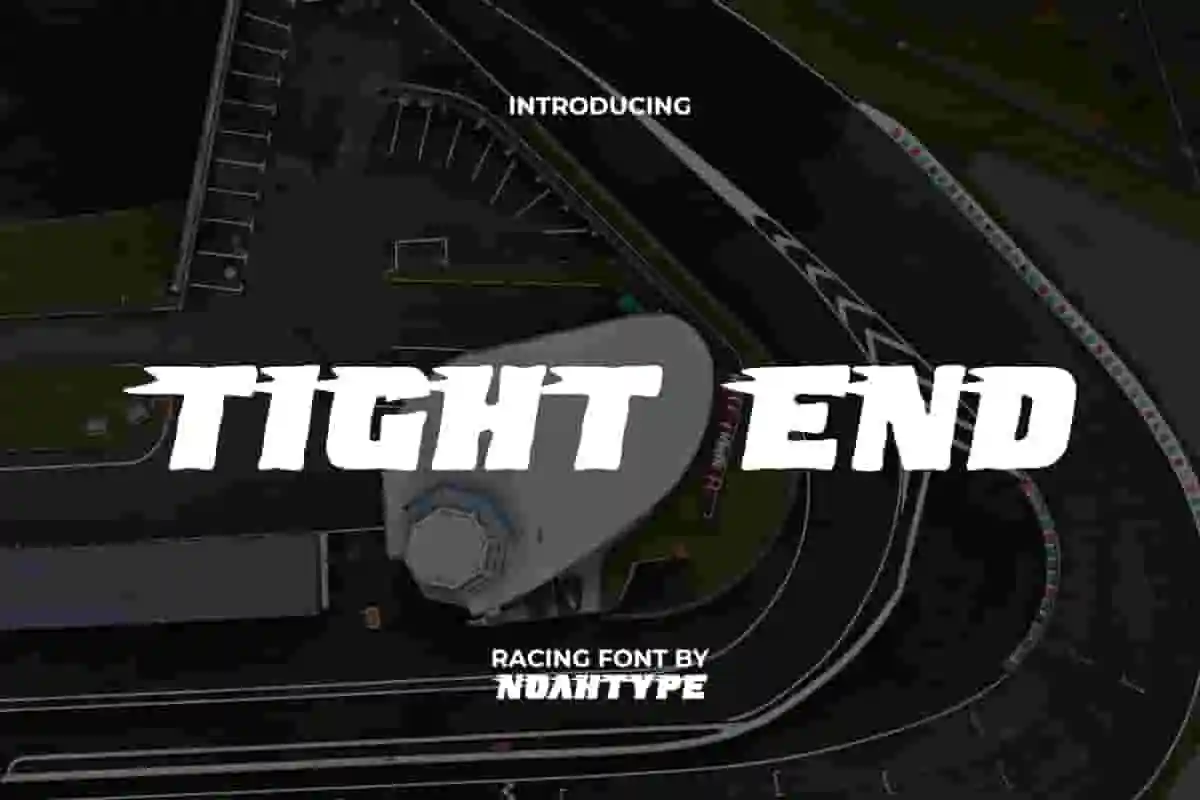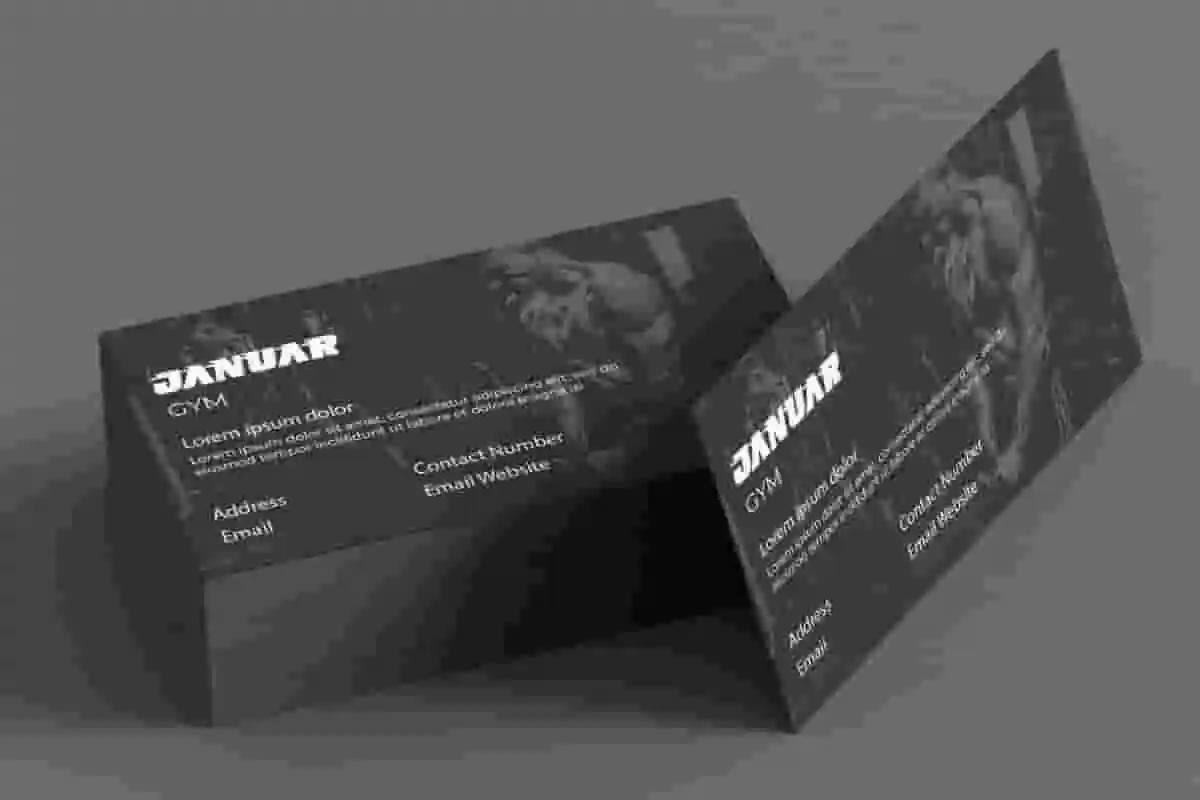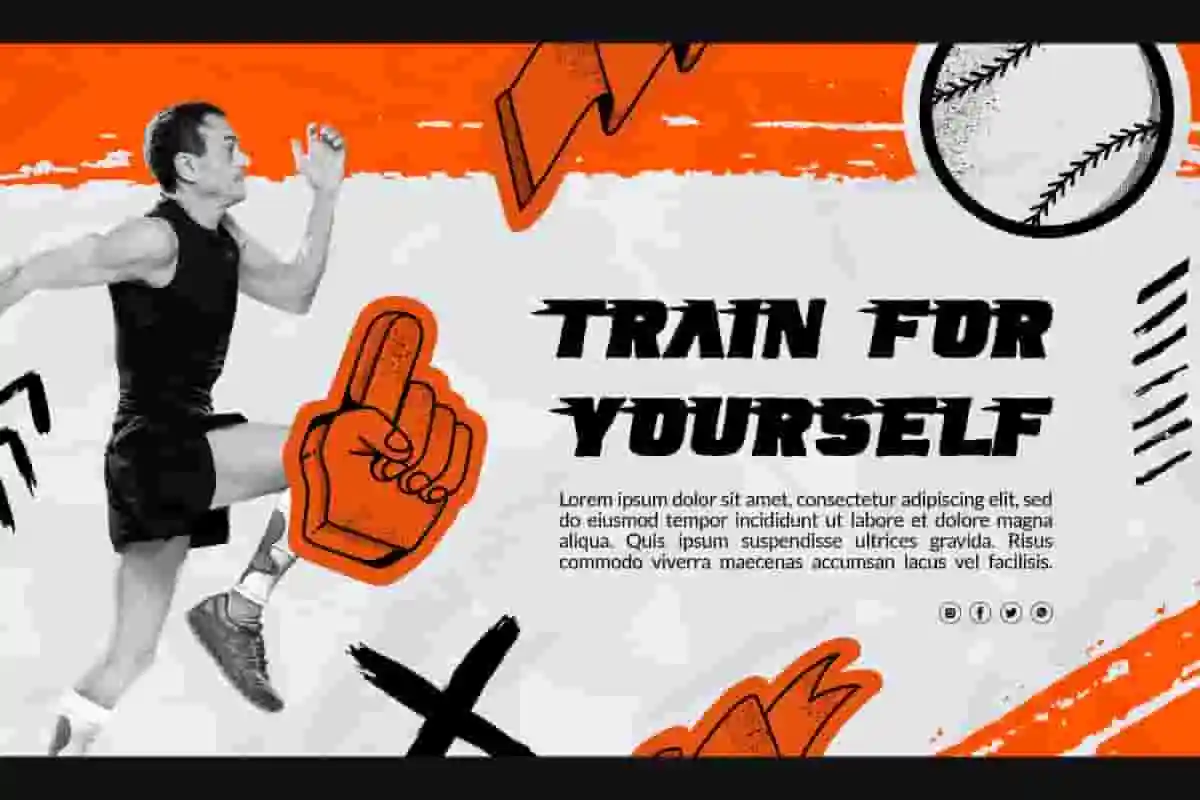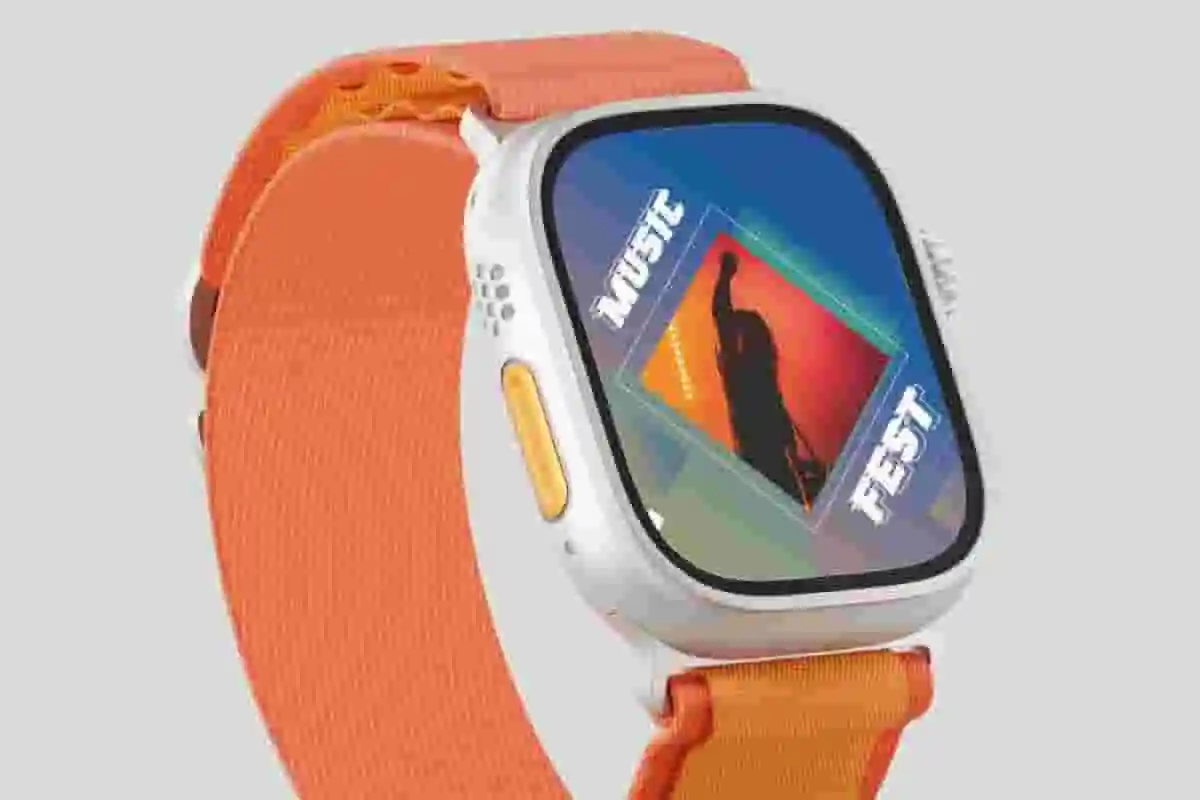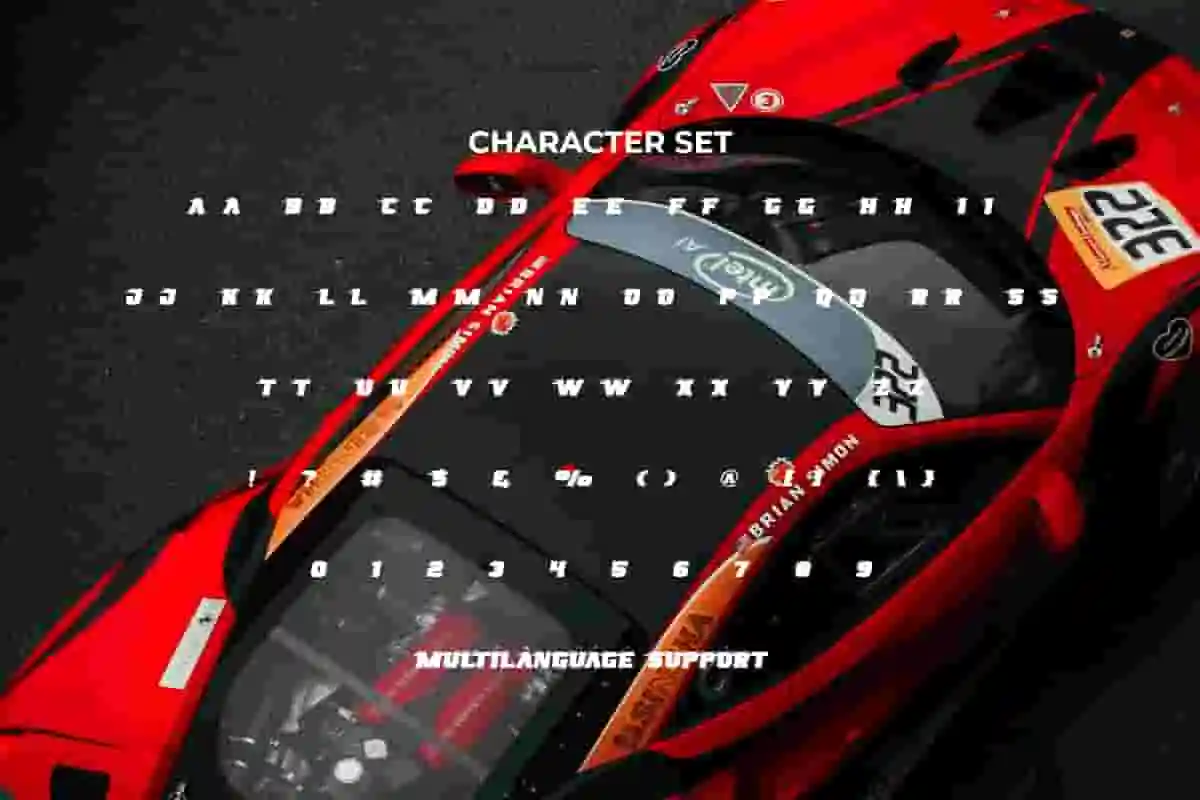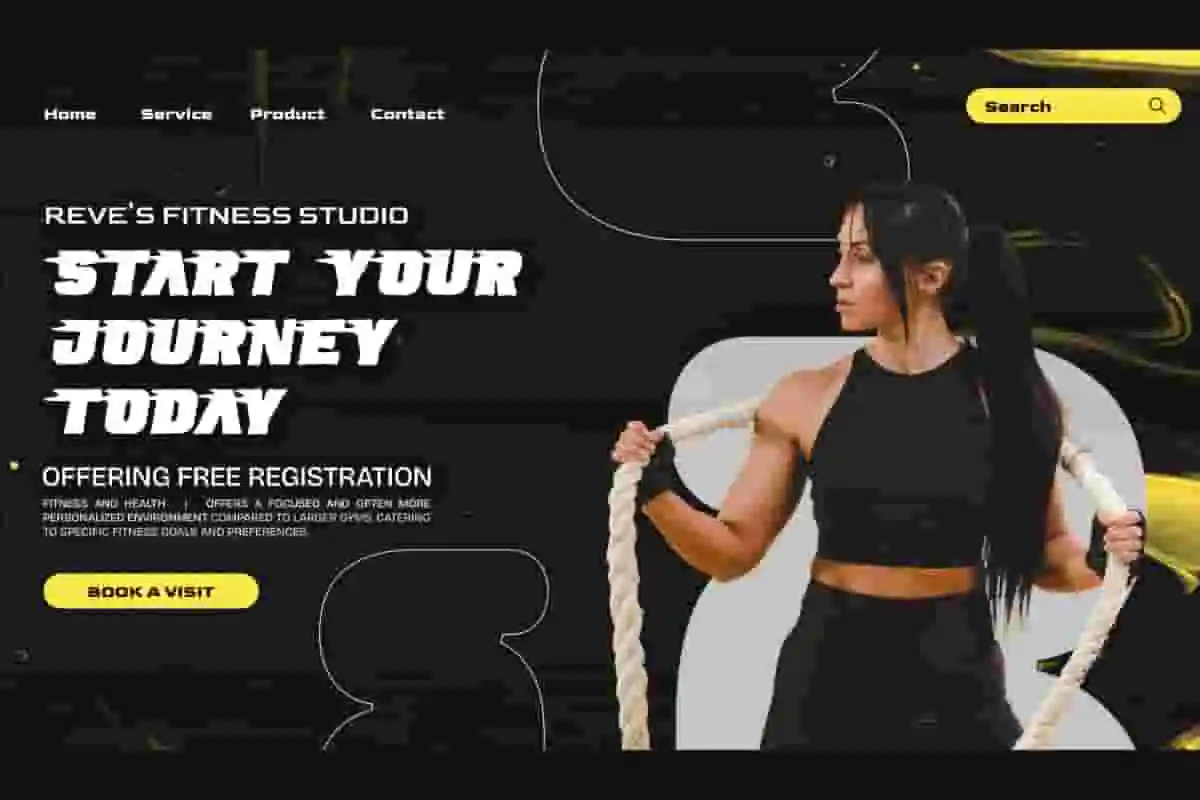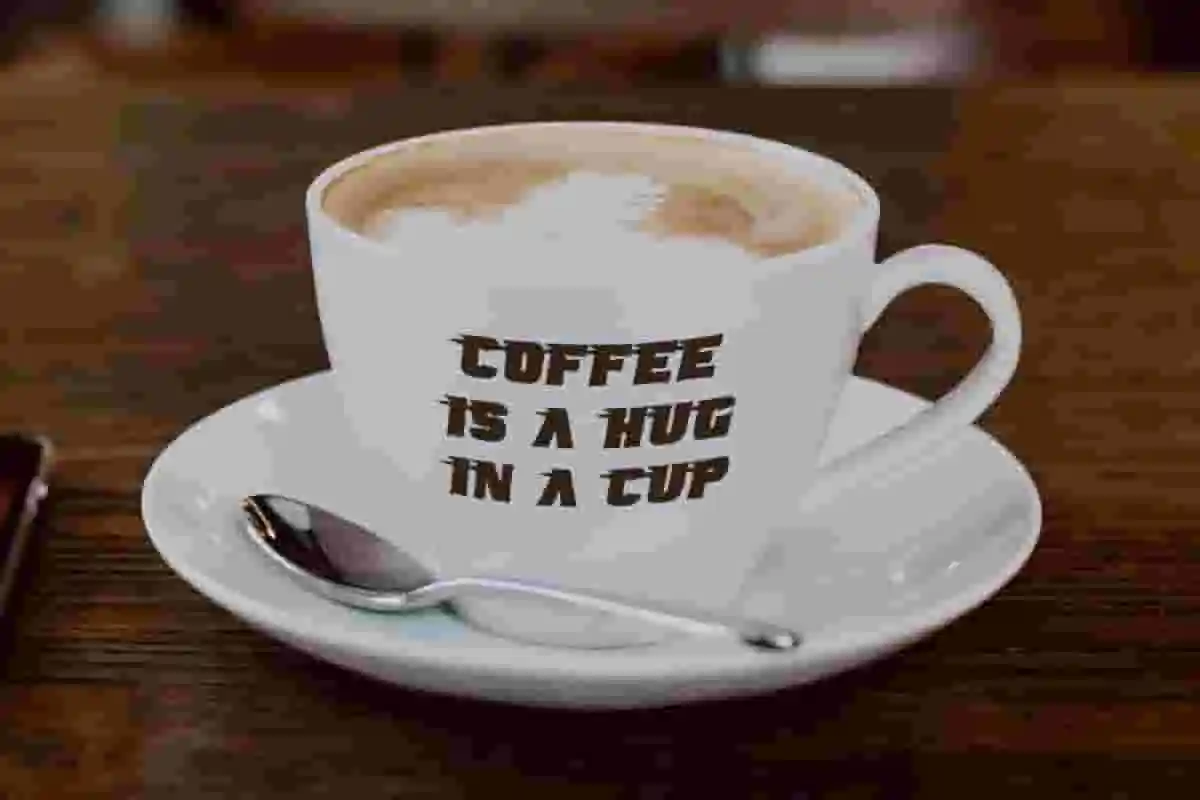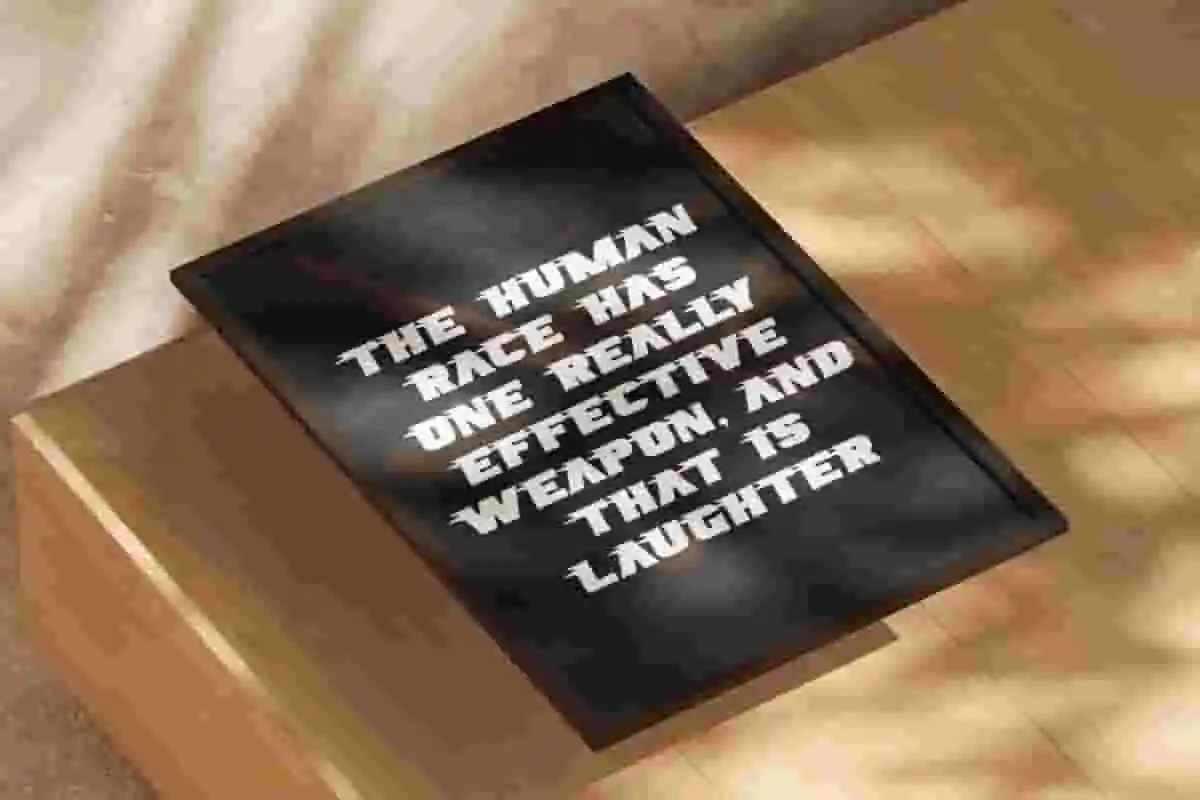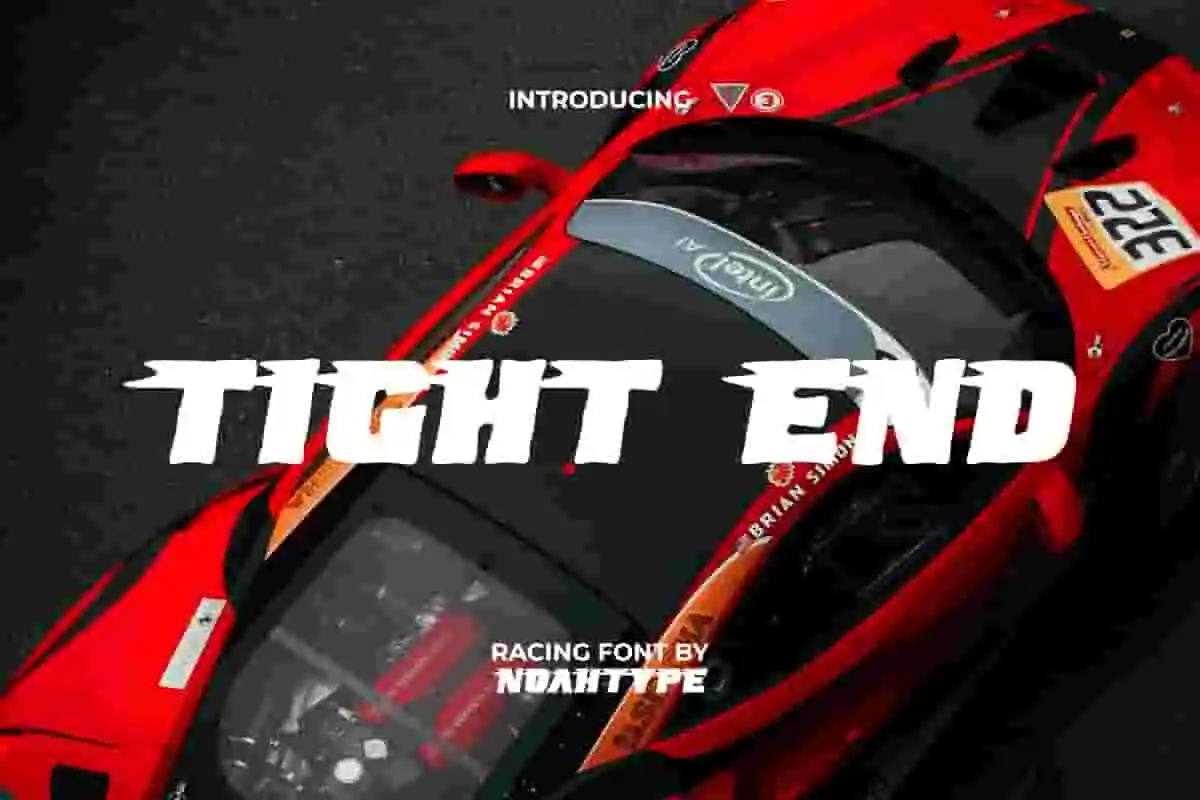
Tight End Font is a high speed racing windy decorated concept display font by NoahType. This font has bold characters so it is still easy to read with a speed effect on the top character. This font will be suitable for a lot of projects, such as custom design, signage, label, business card, catalog, cover, poster, quotes, website, and more!
Tight End Font includes full set of Uppercase and Lowercase Basic Characters, Numerals and Punctuation. This font has an attractive appearance that will make you believe it is the perfect choice for many industries, such as sports, racing, game, automotive, advertisement, café, event organizer, fashion, printing, publishing, etc.